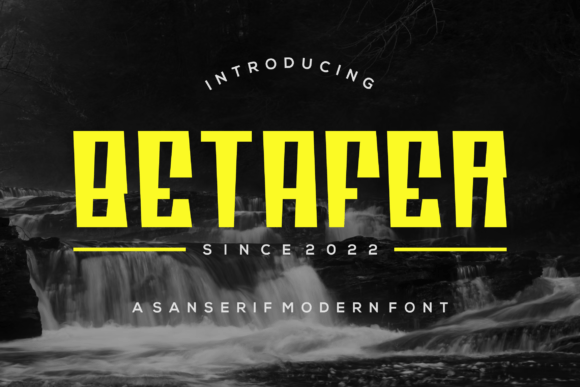
Betafer Font: A Modern and Cool Display Font
Betafer is a modern and cool display font that can elevate any creation. Its clean lines, elegant curves, and unique style make it perfect for a wide range of projects, from branding and advertising to packaging and digital media. Whether you’re a designer, crafter, or creative hobbyist, Betafer Font is an incredible asset to your font library.
- ✨ Unique and distinctive style: Betafer Font stands out from the crowd with its modern and edgy look.
- ✅ Highly versatile: It can be used for a wide range of projects, from display text to headings and titles.
- 💡 Inspires creativity: Betafer Font’s unique style sparks imagination and encourages experimentation.
While Betafer Font is an excellent choice, there are a few things to keep in mind:
- 🤔 Limited use for body text: Due to its display nature, Betafer Font might not be the best choice for long blocks of text.
- ⚠️ Requires careful kerning: As with any font, attention to kerning is essential to ensure optimal readability.
The Story Behind Betafer Font
Betafer Font was designed with the goal of creating a modern and versatile display font that could be used in a wide range of projects. The designer, inspired by the latest design trends and technologies, crafted a font that is both elegant and edgy. With its unique style and extensive features, Betafer Font has quickly become a favorite among designers and creative hobbyists.
Q: What type of projects is Betafer Font best suited for?
A: Betafer Font is ideal for display text, headings, titles, and any project that requires a modern and edgy look.
Q: Can I use Betafer Font for body text?
A: While Betafer Font can be used for short paragraphs, it’s not recommended for long blocks of text due to its display nature.
Q: Is Betafer Font suitable for digital media?
A: Yes, Betafer Font is optimized for digital use and can be used in a variety of digital projects, from social media graphics to website headers.